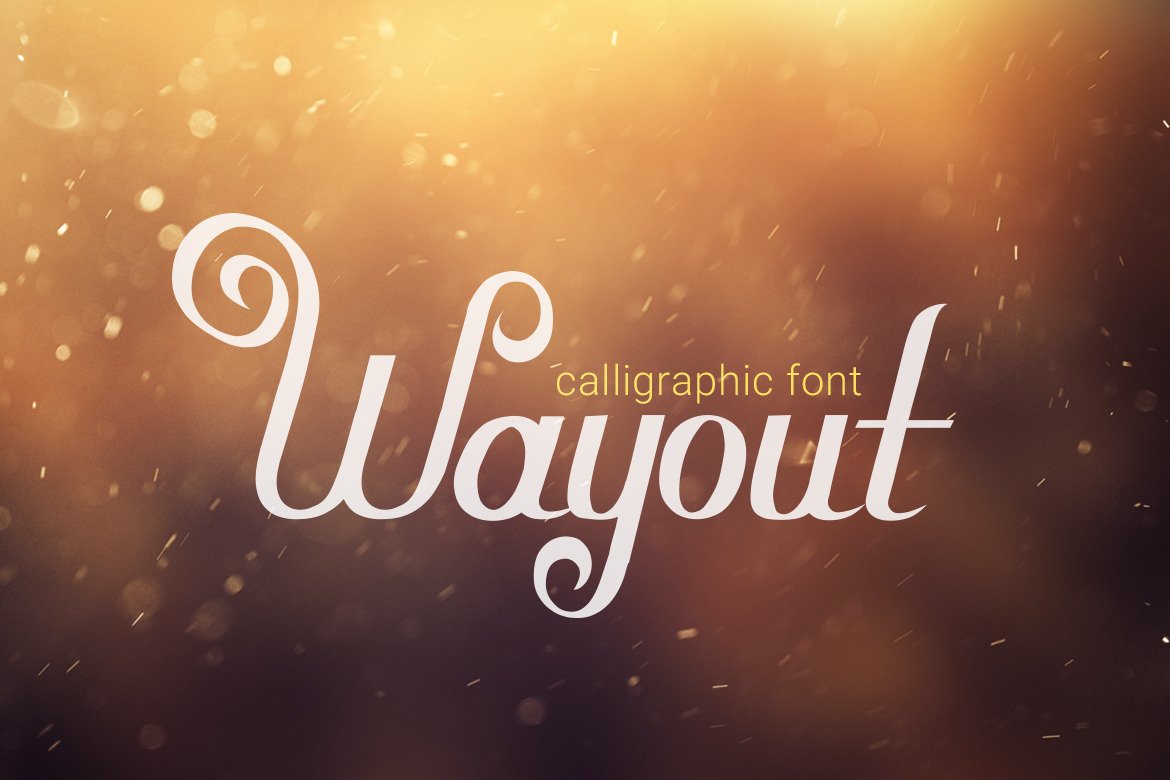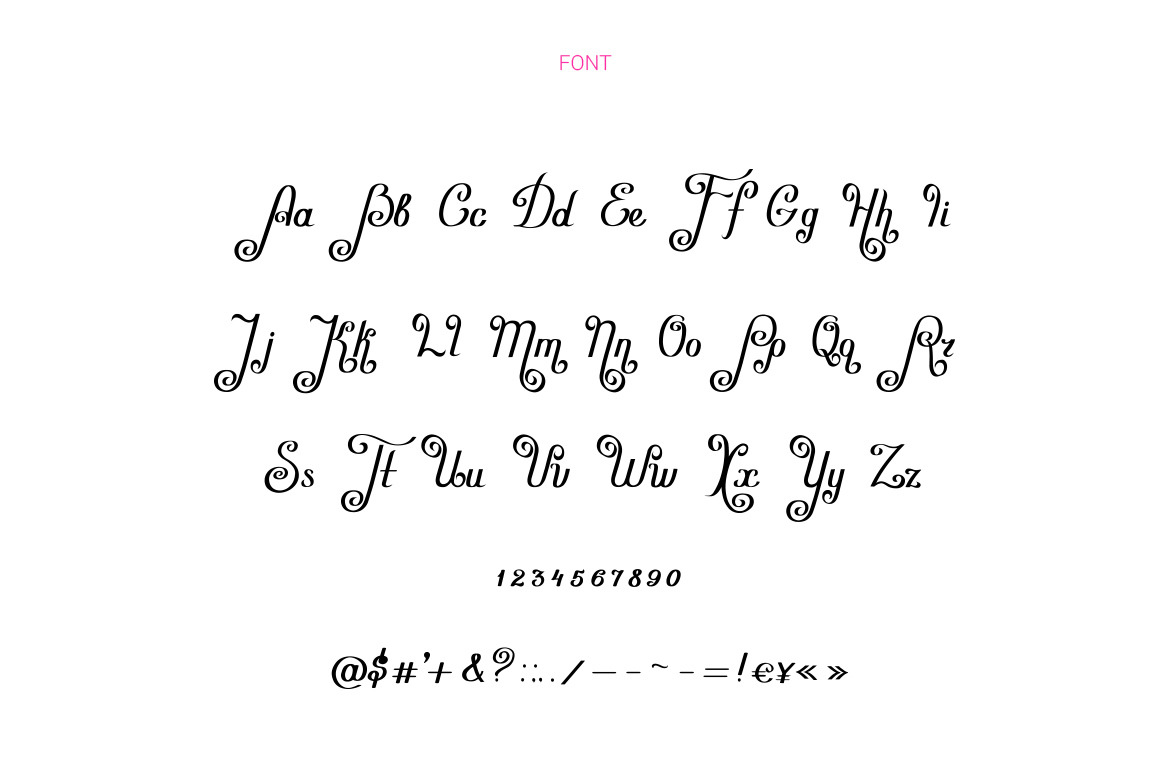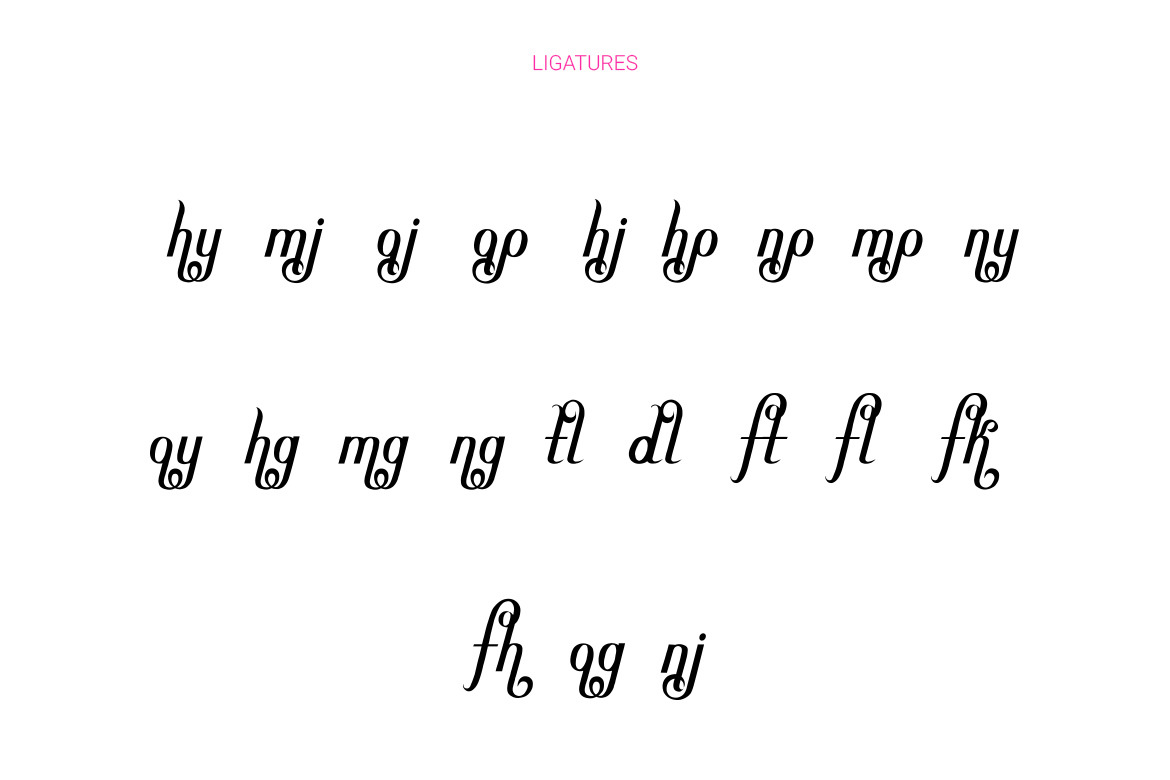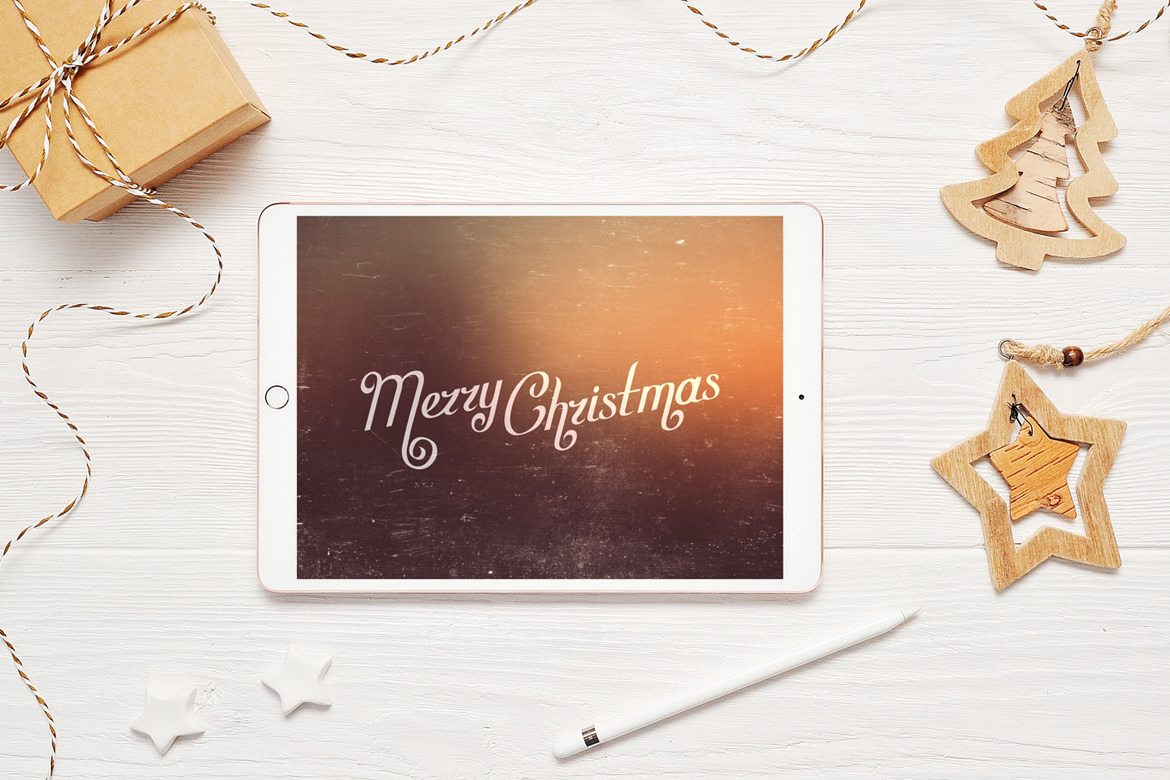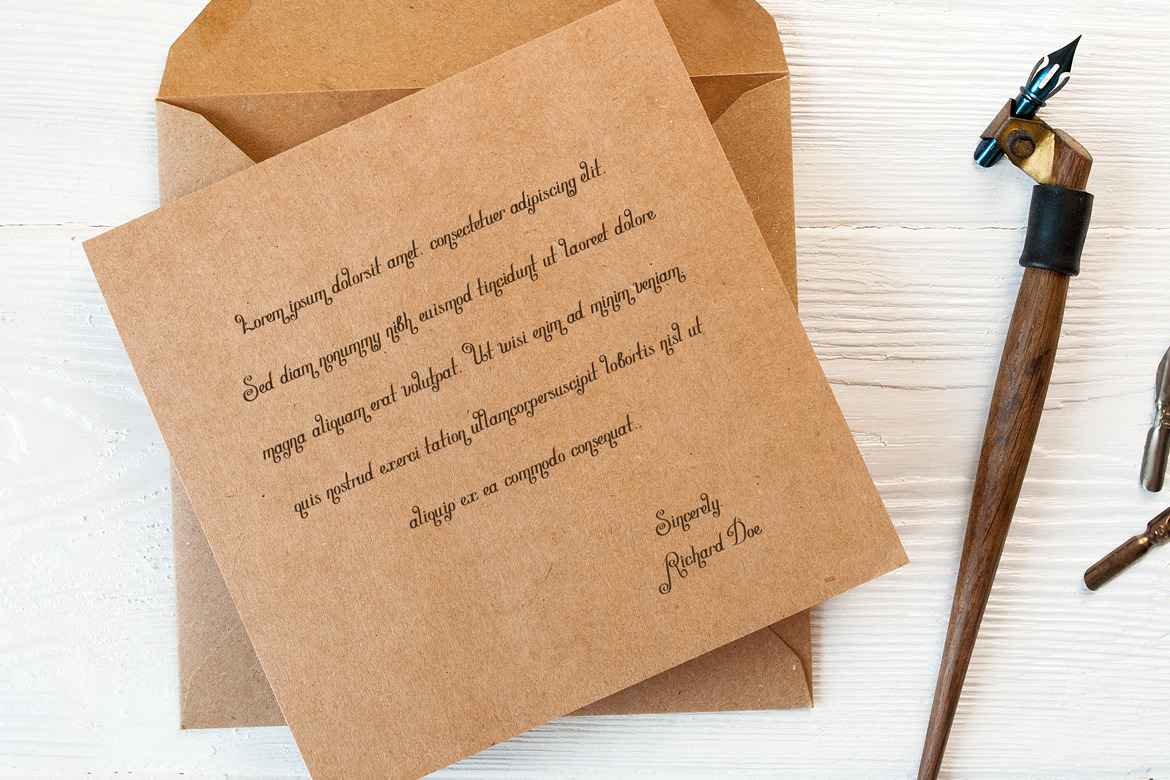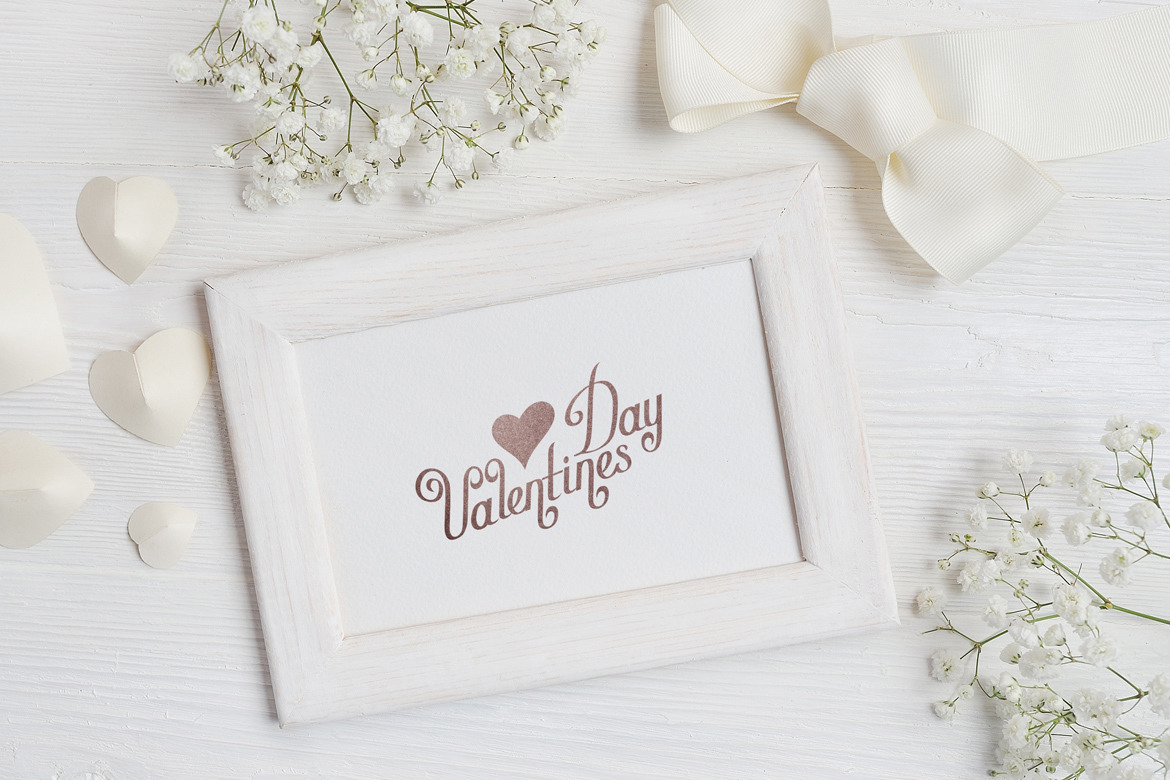
Wayout Calligraphic Vintage Font
Wayout is a beautiful elegant calligraphic font give the accurate looks. Good for Headers and Text both.
Alternate characters contain with opentype features. Stylistic alternates, Ligature and more. You can access all those alternate characters by using OpenType savvy programs such as Adobe Illustrator and Adobe InDesign.
Great for Invitations & greeting cards, Apparel Brands, Logos, Printed quotes, product packaging, text headers, book cover.